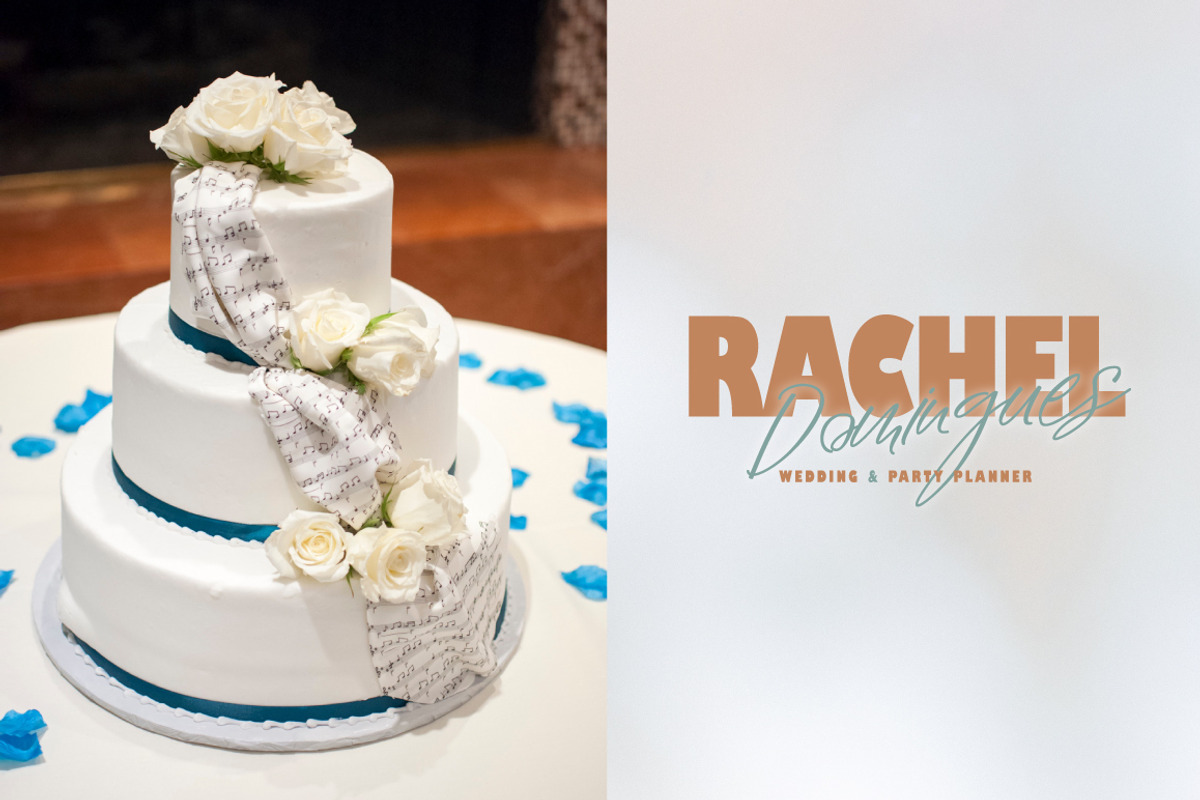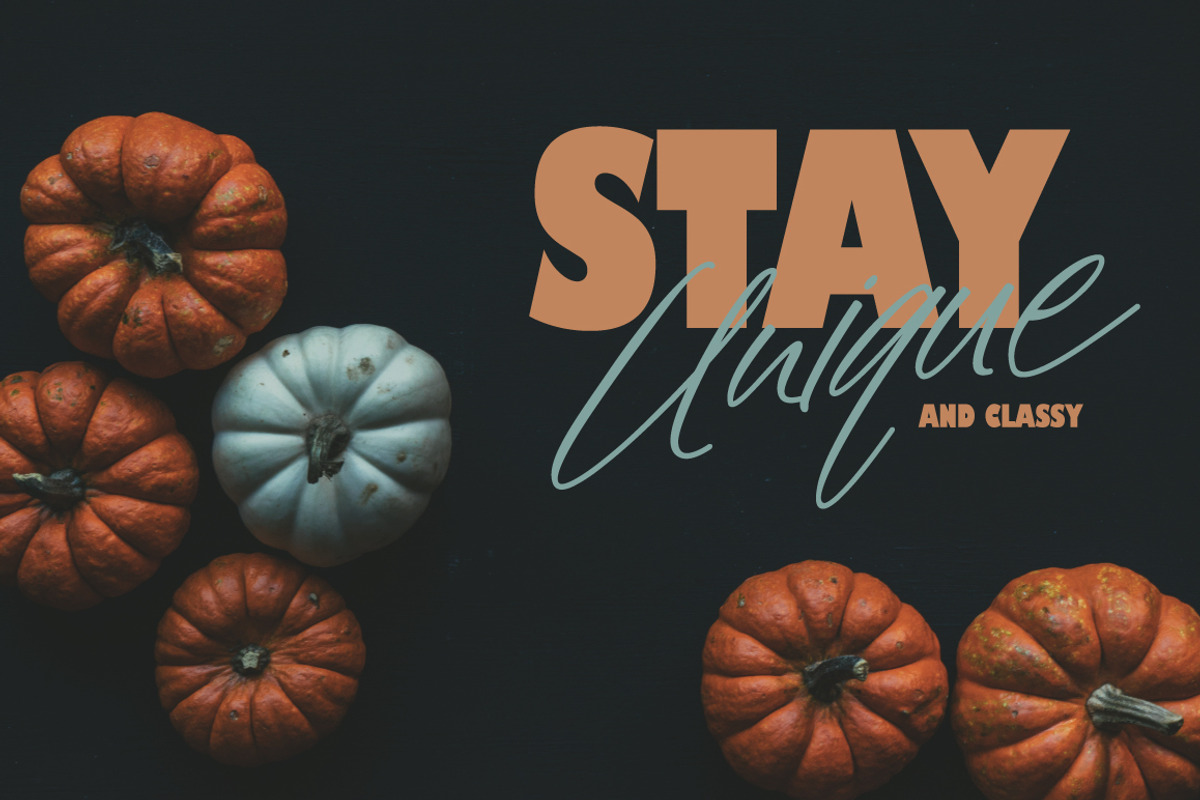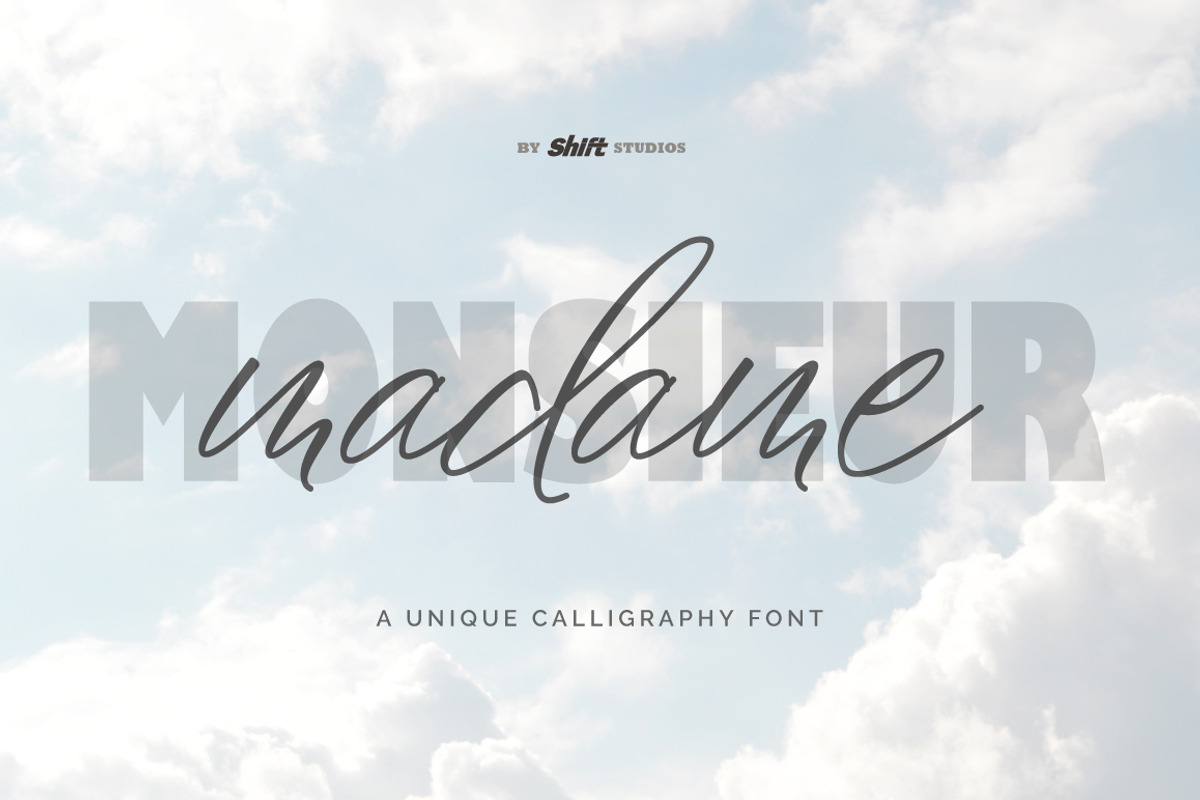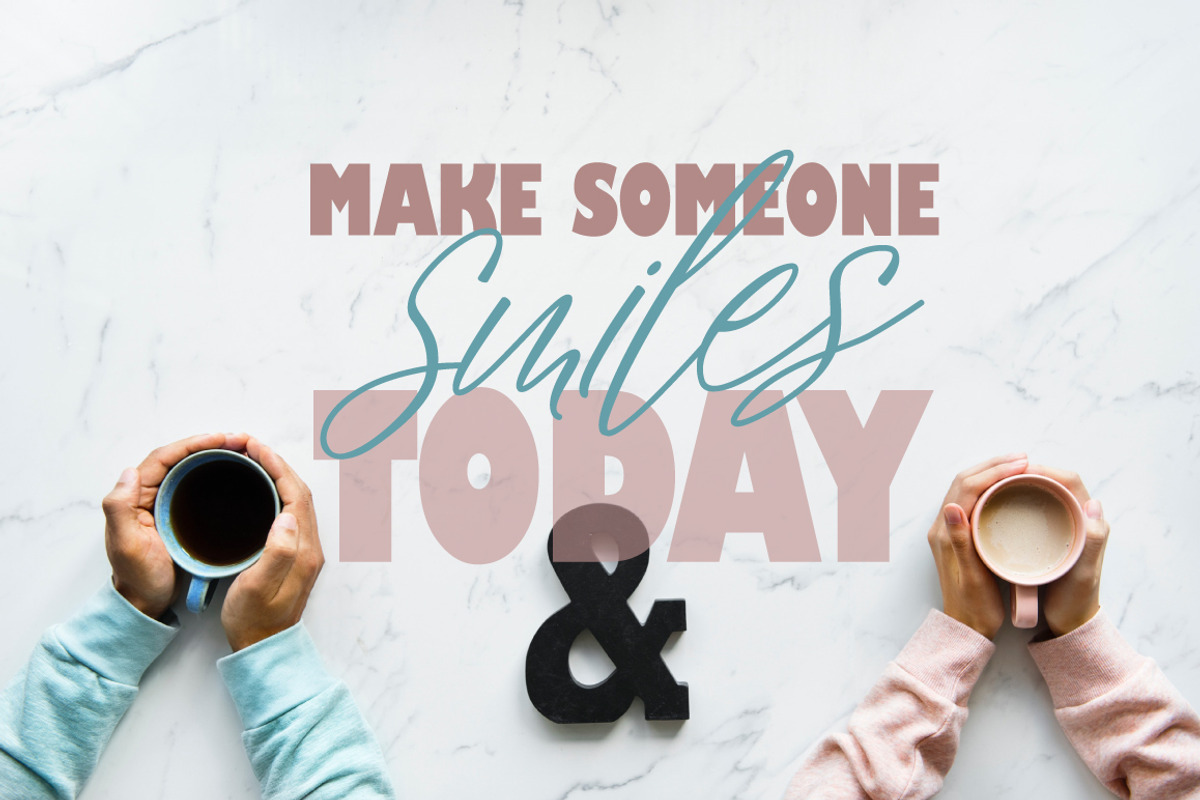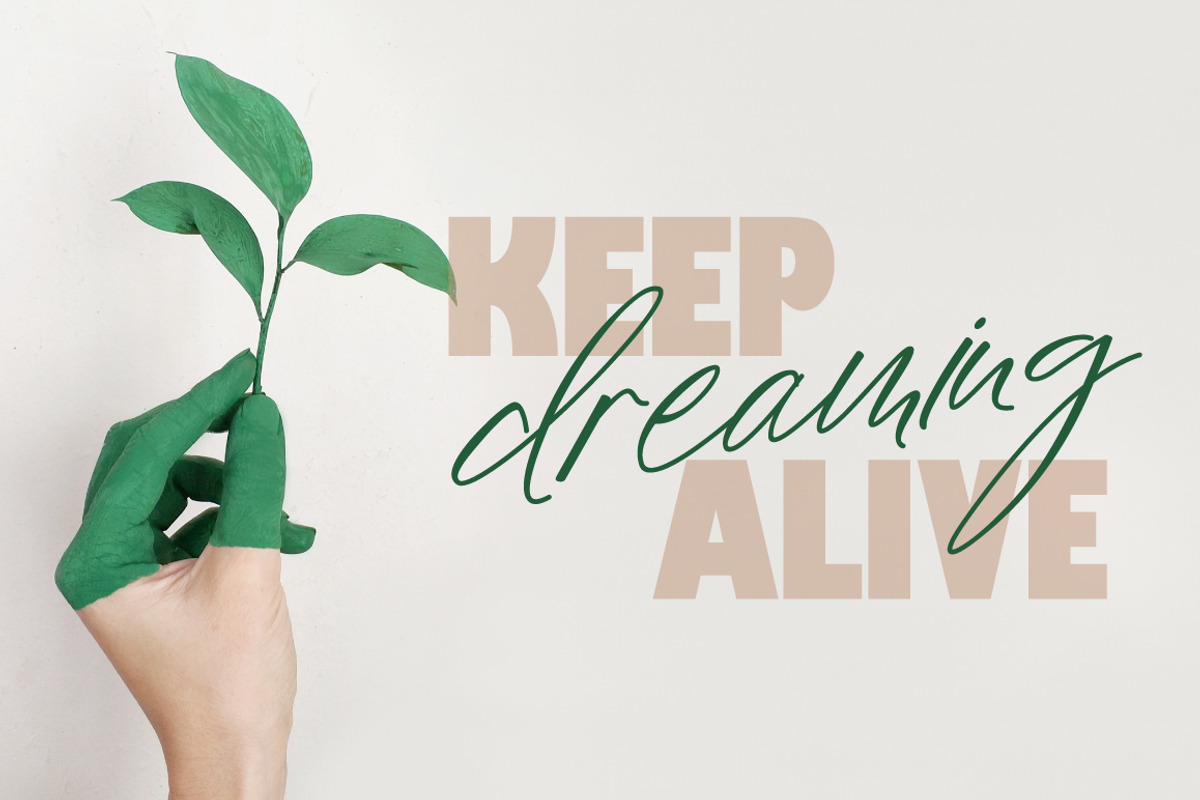
Madame Typeface
Madame font is an irregular bouncy script style and handwriting font. This script font specifically established for random, fast and unique handwriting looks and perfect also for your special branding.
Perfect for displays, headers, invitations, blogs, poster and so much more, Madame will become a lively essential in your font collection!